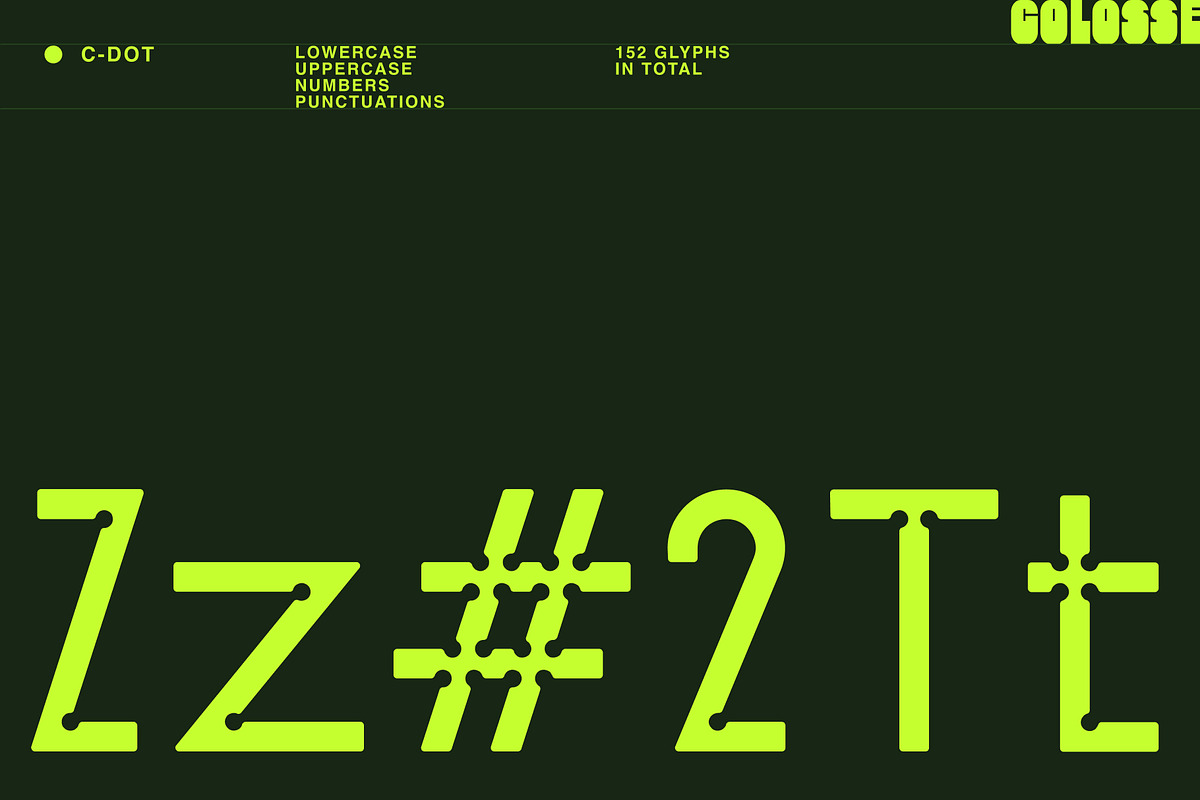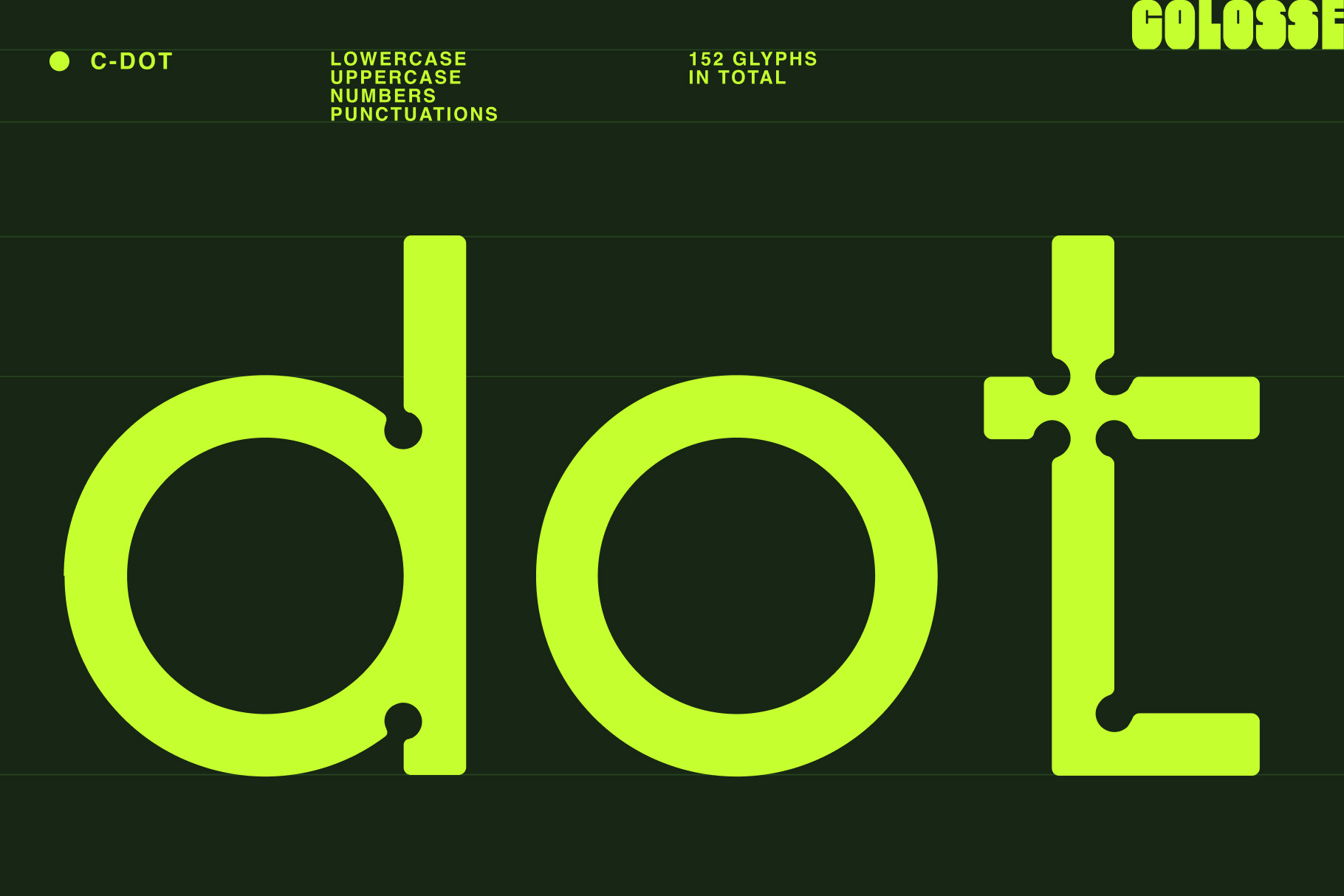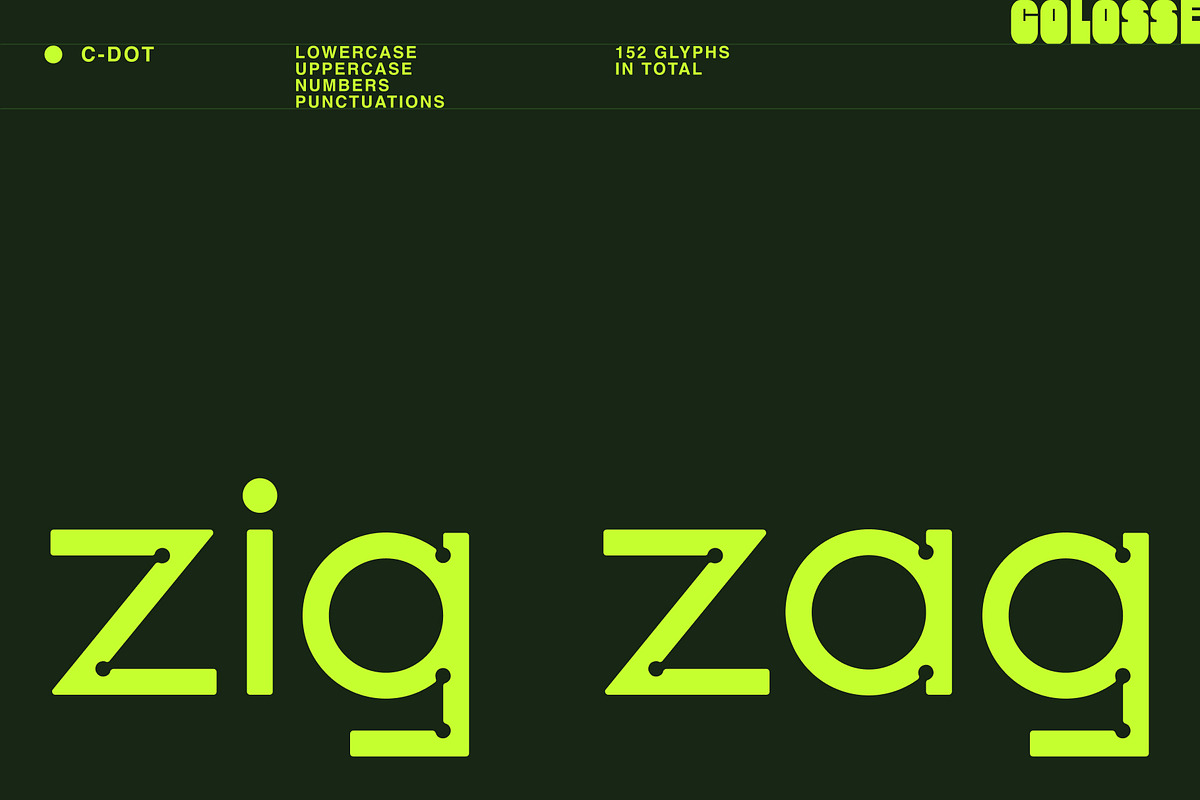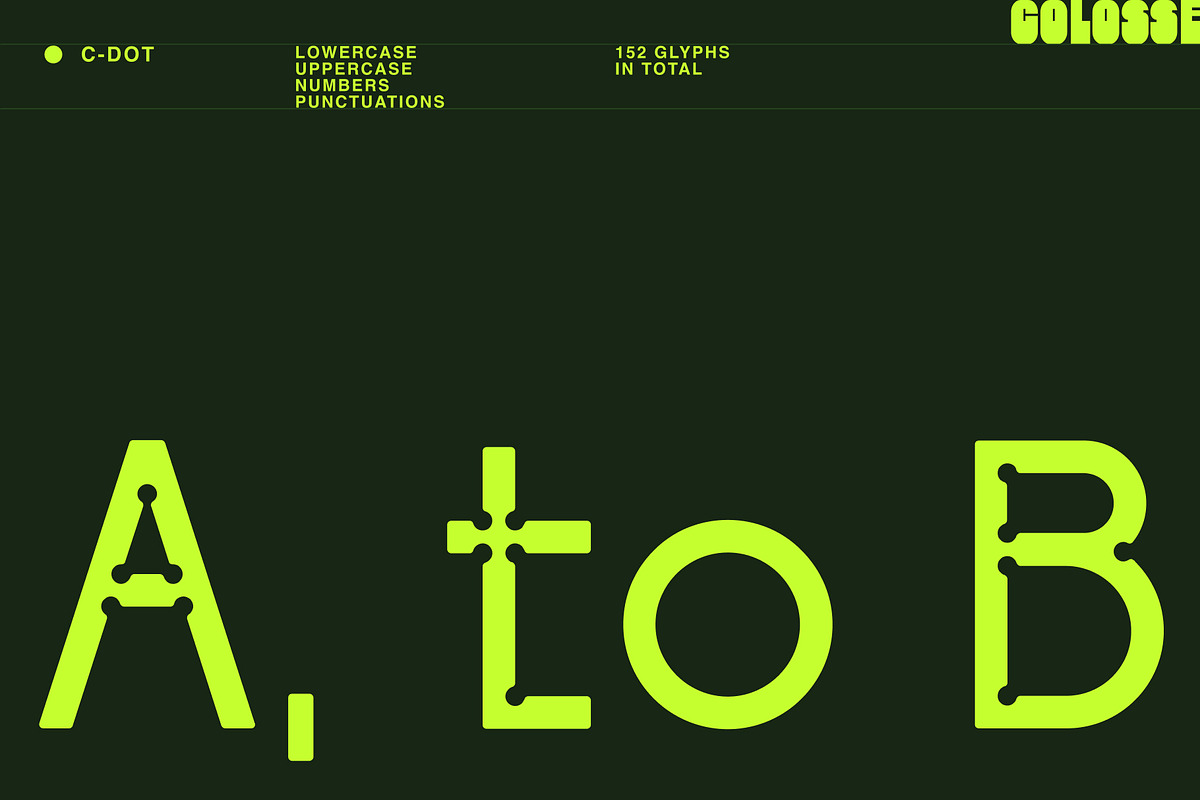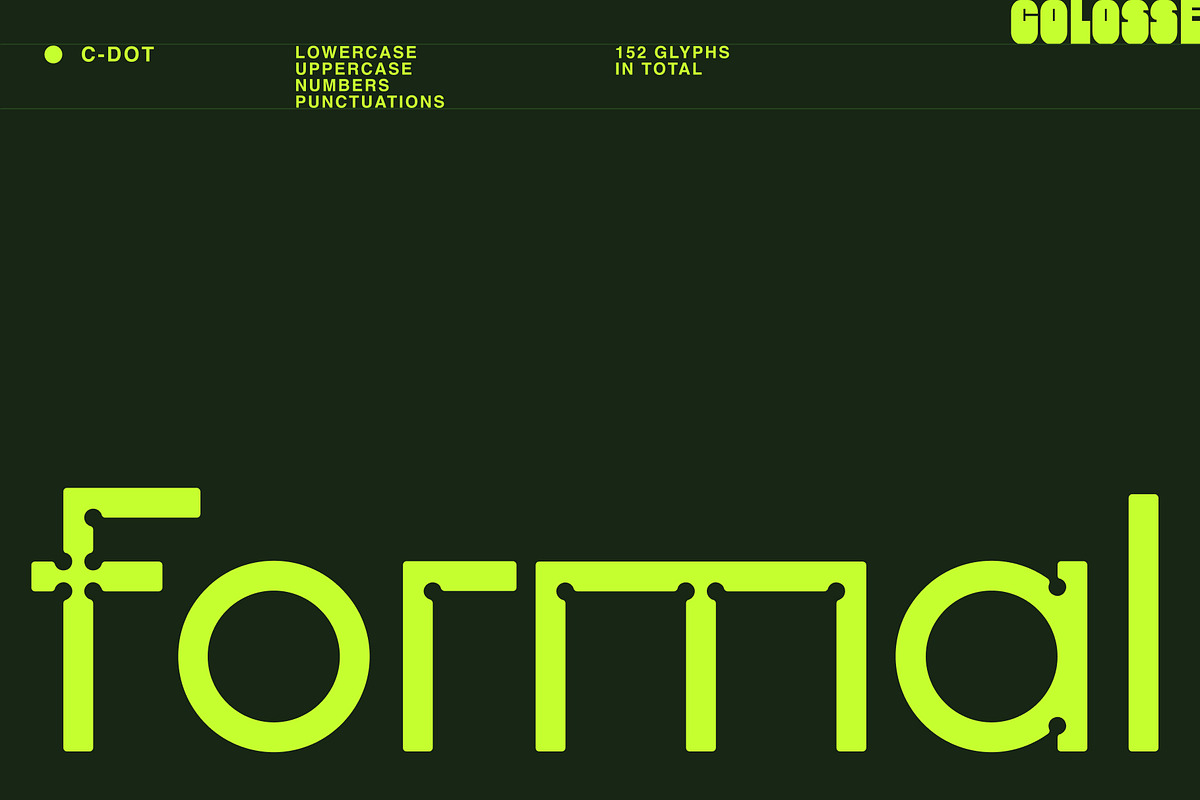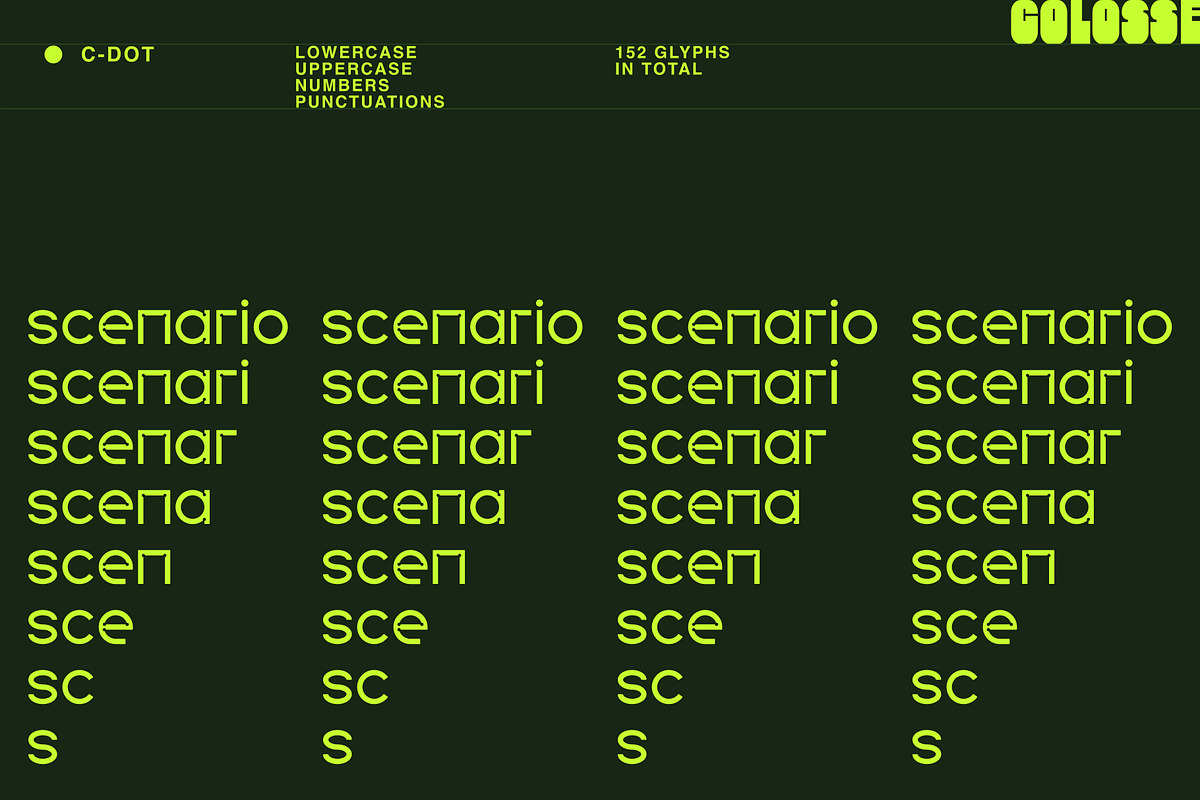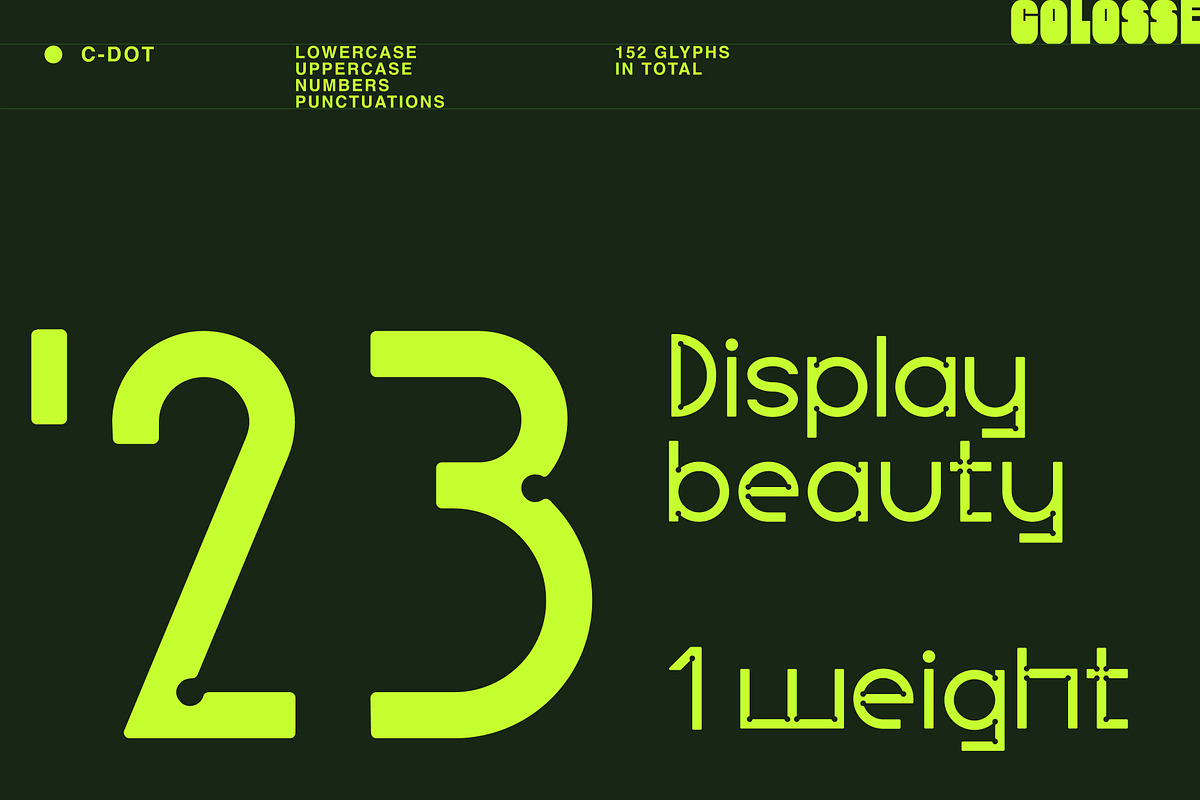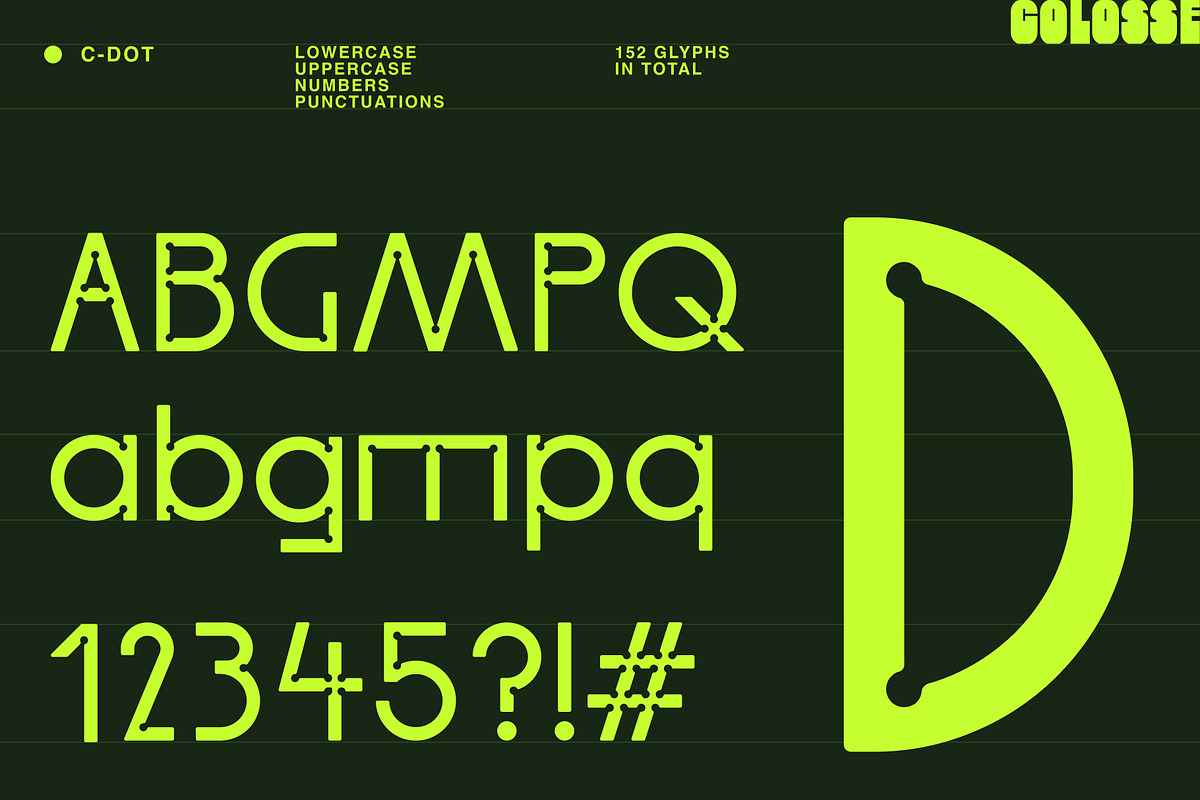
c-dot display typeface
c-dot, is a display sans-serif typeface inspired by the mission to save ink on print while offering a unique and creative twist. c-dot features a combination of fully condensed and expanded letters, resulting in a visually captivating and distinctive design. This font's ingenious composition allows for efficient use of space while maintaining legibility and style.